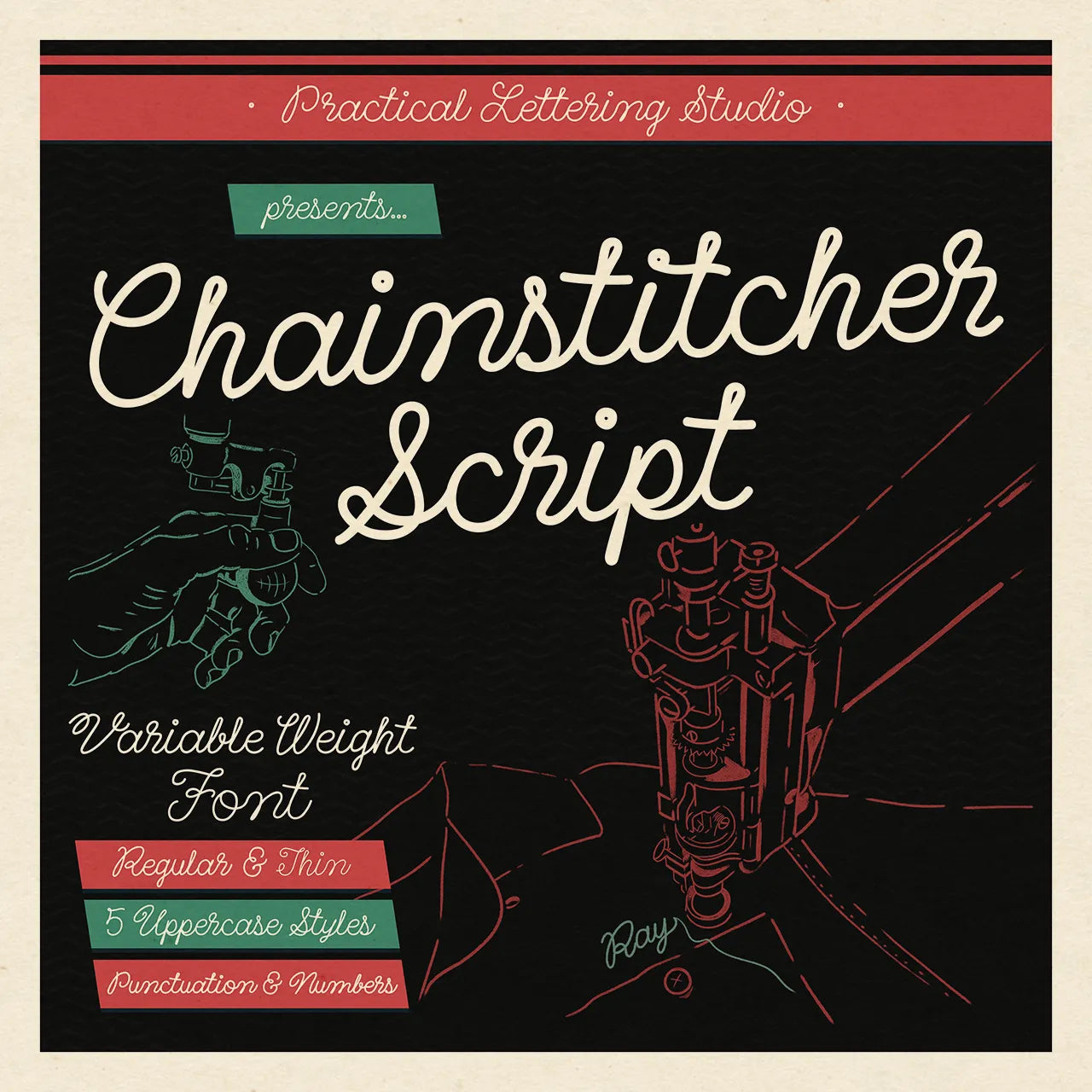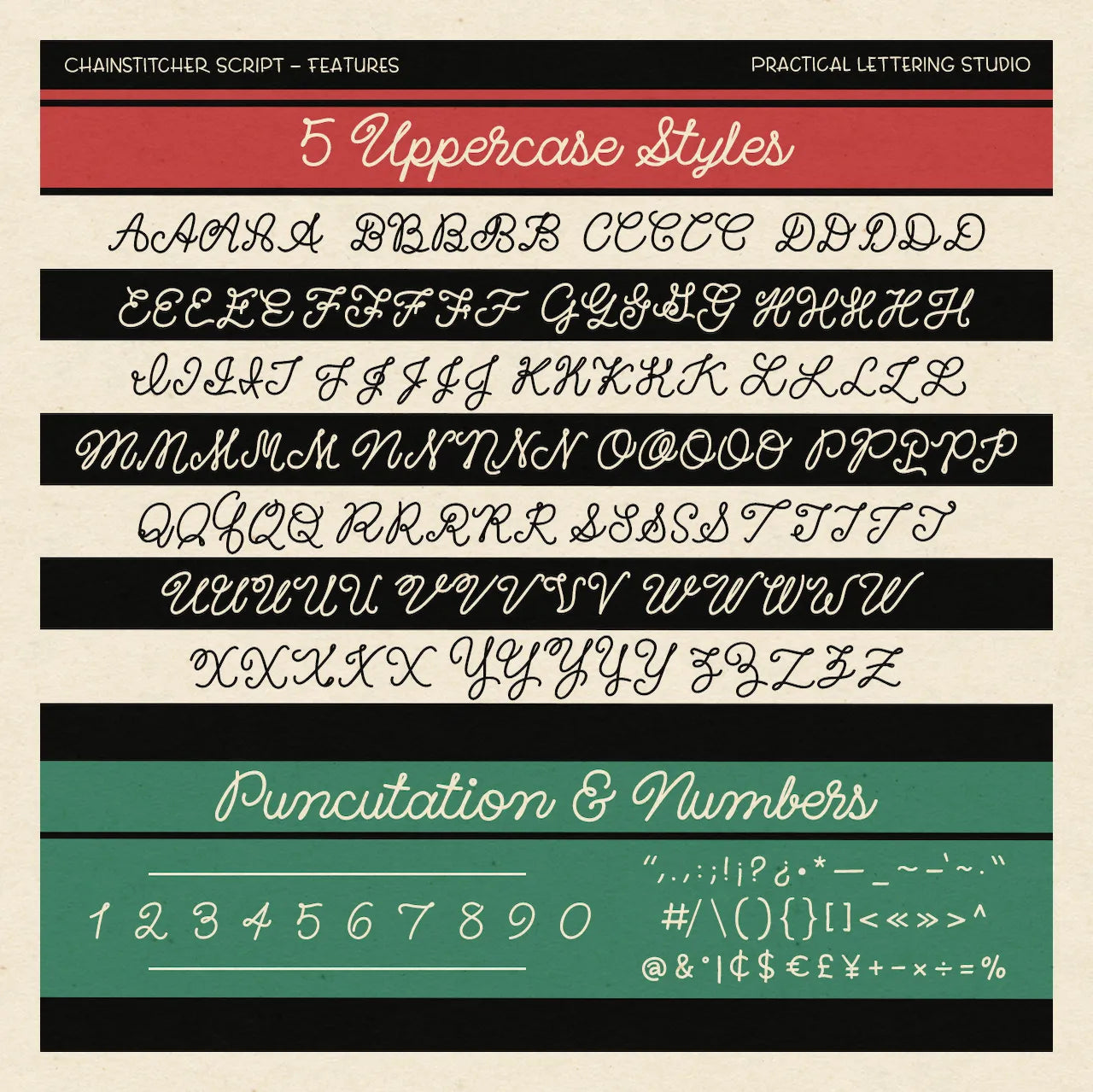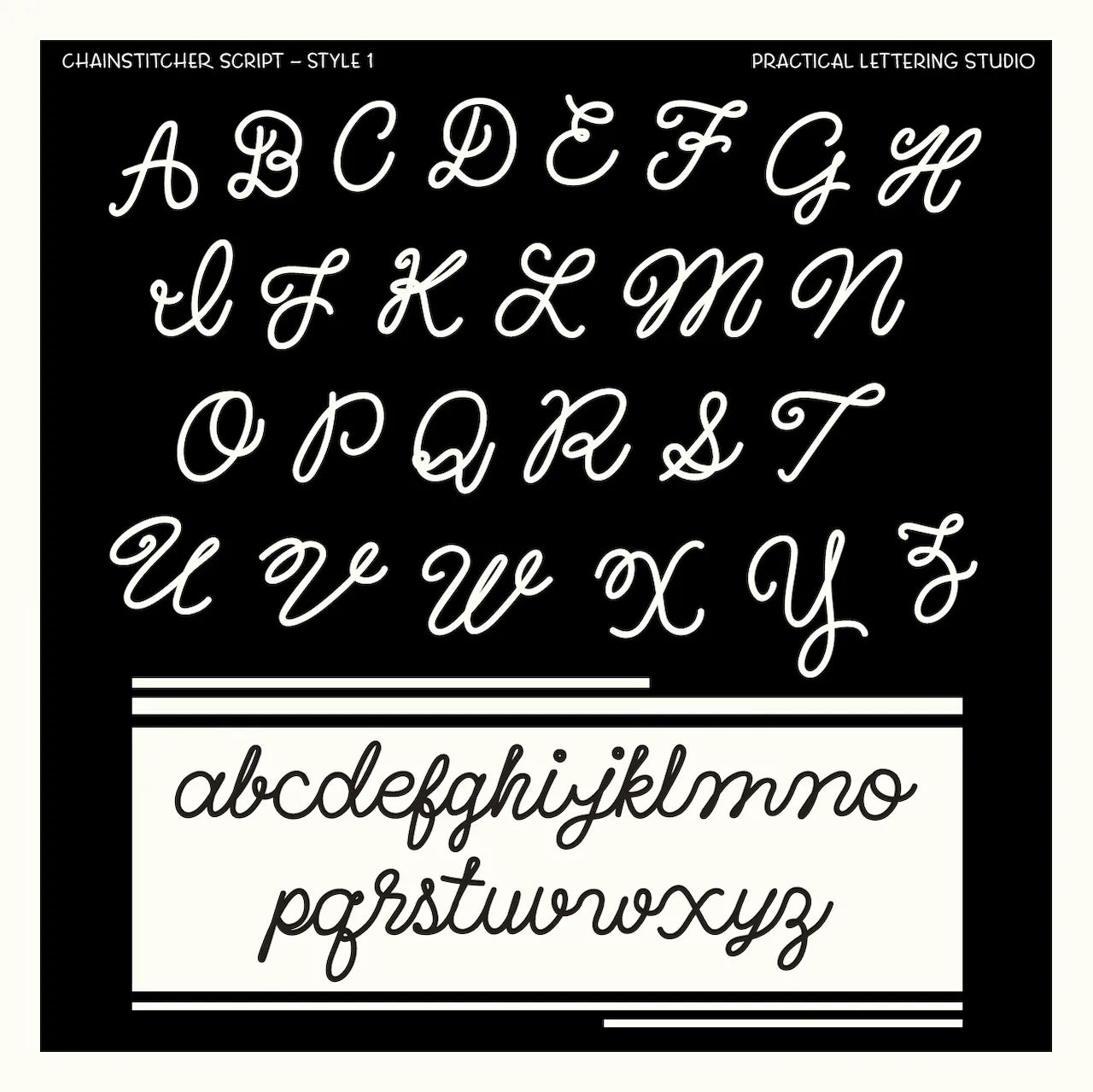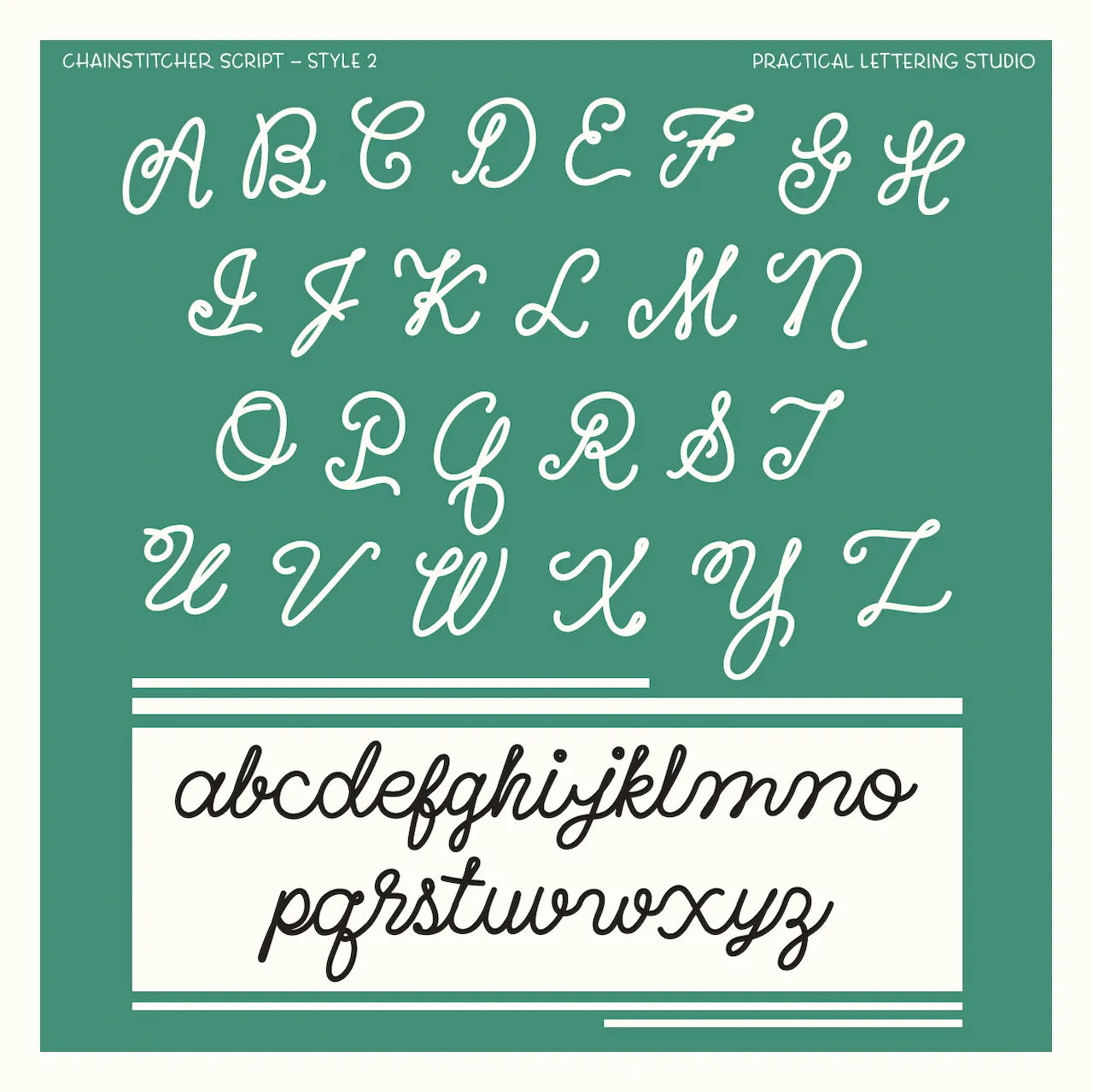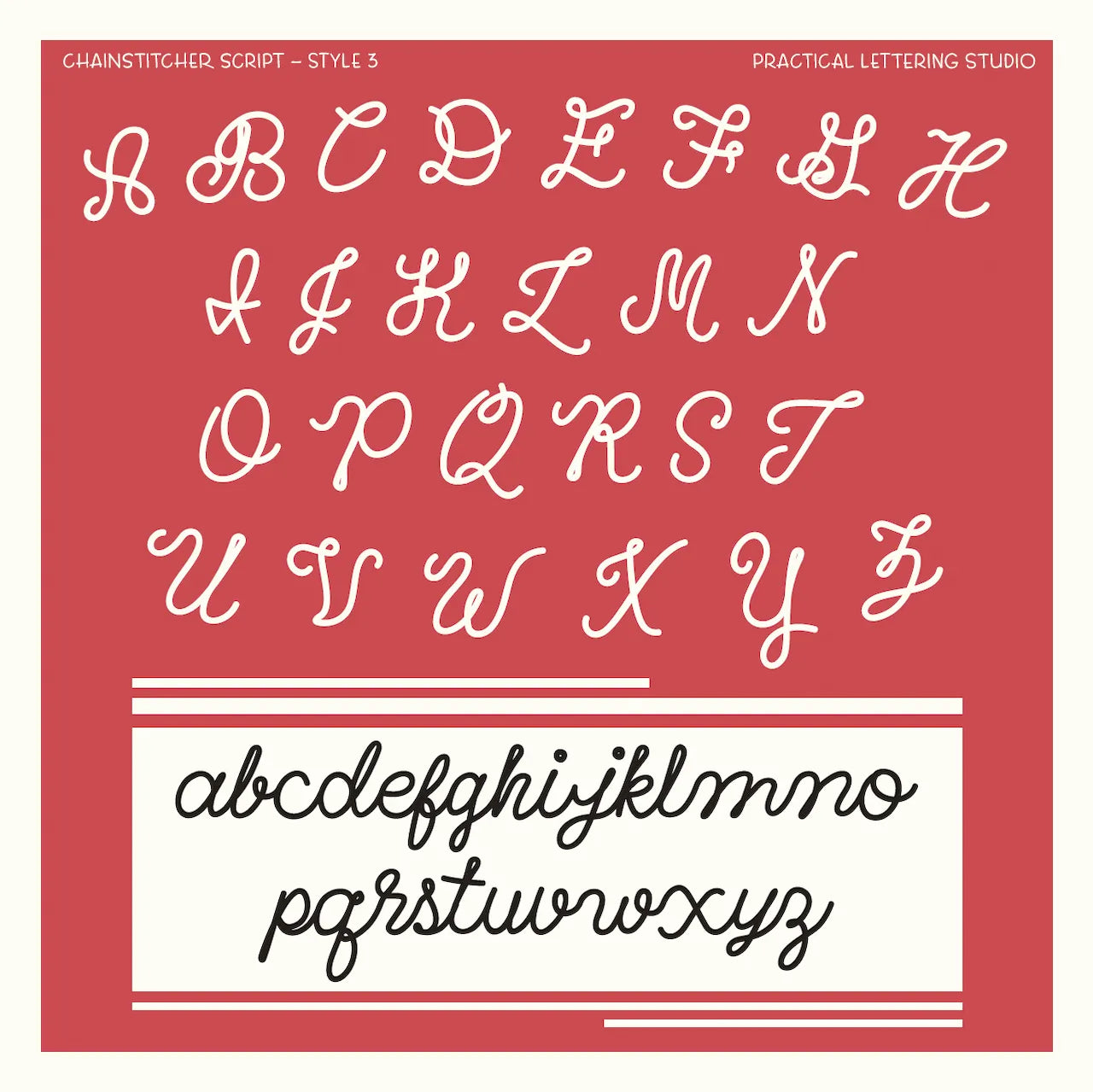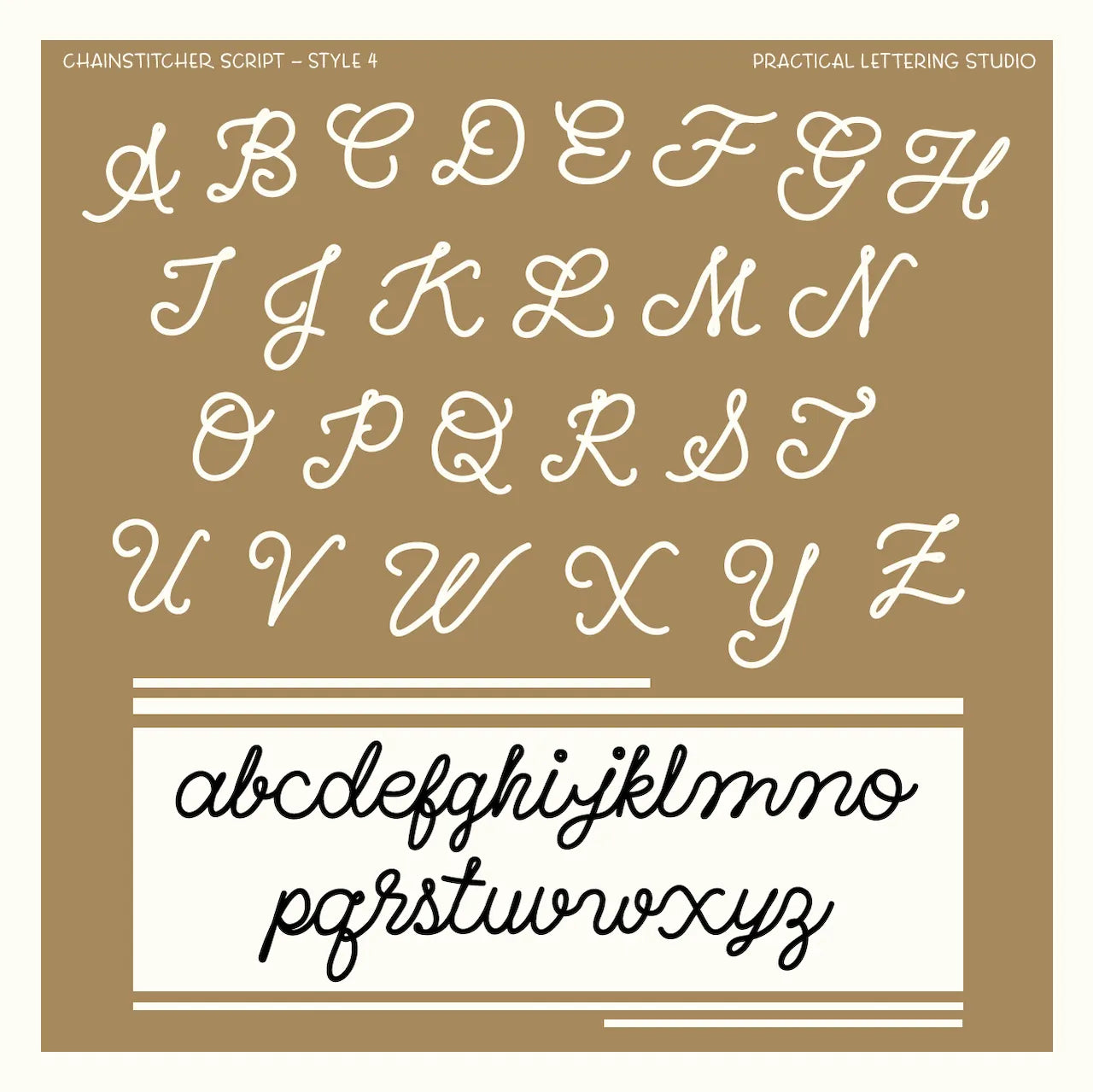
CHAINSTITCHER SCRIPT is a font designed to evoke the hand-operated look of chain-stitch embroidery.
It is directly inspired by the flowing script found on bowling shirts, letterman jackets, and mechanic’s name patches from the 1950s–60s. This script aims to capture the unique elements of lettering made on a “bonnaz” chainstitch machine: bouncy connections, slightly irregular turns, and a looseness that feels stitched rather than typeset.
Whether you’re a working chainstitcher using the font for client mockups and design reference, or you simply want a vintage monoline script with human imperfection, this is for you!
Five uppercase styles (regular + ss01-ss04) for flexible uppercase to lowercase connections and visual variety (organized as stylistic alternates/sets for quick swapping).
Variable font with a weight axis from Thin to Regular for precise in-between values
Uppercase & lowercase, numerals, punctuation, and common symbols.
Ligatures for common lowercase script collisions (i↔t, t↔t)